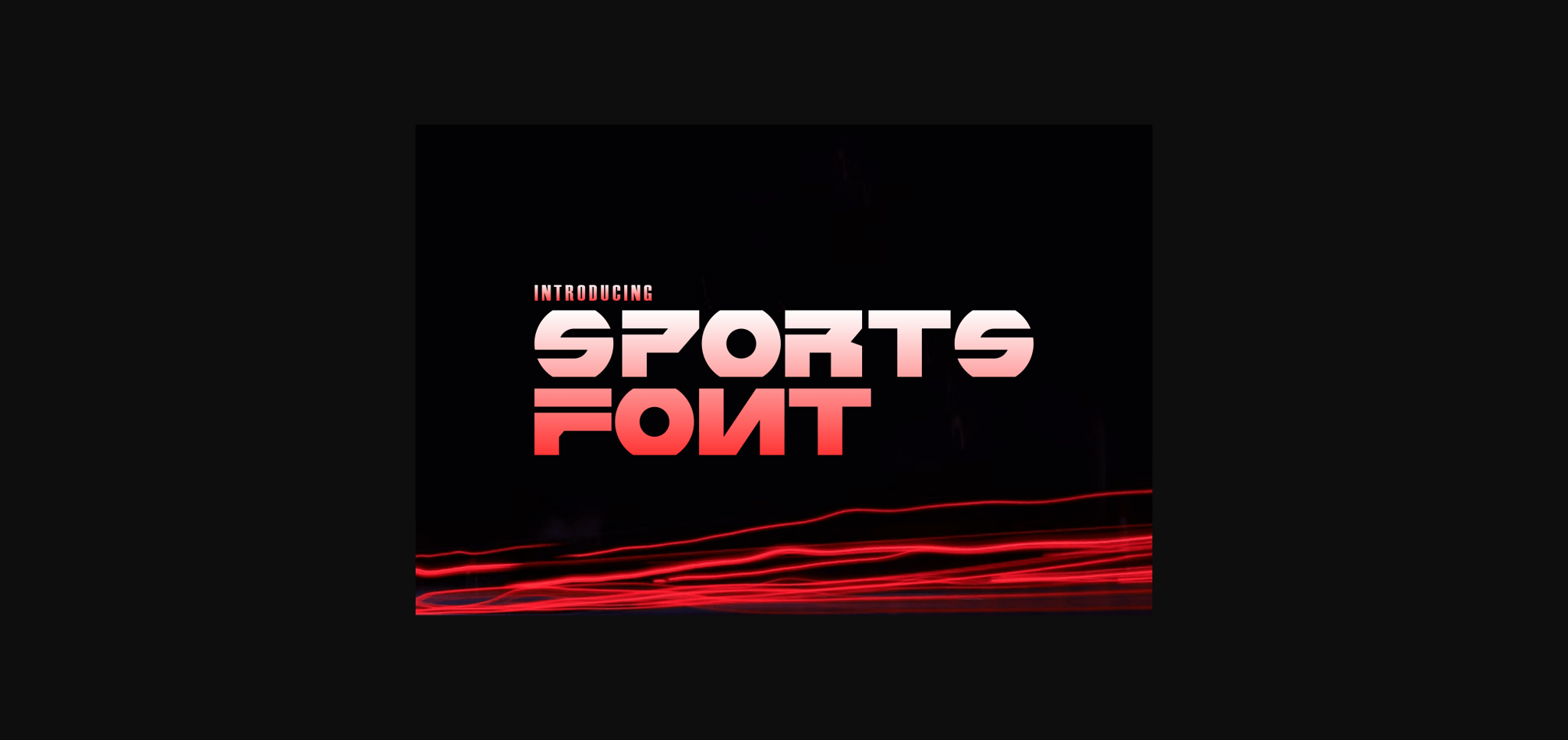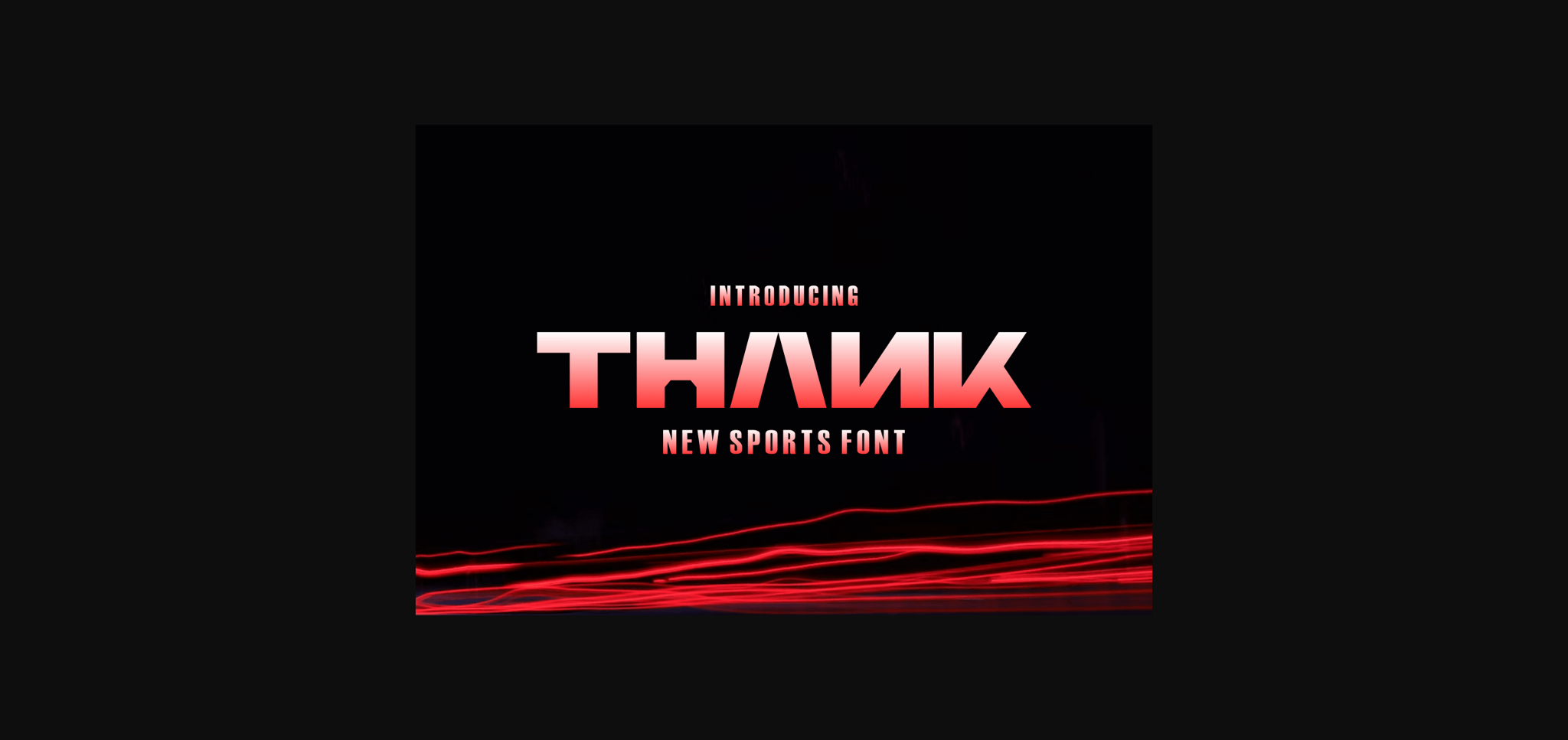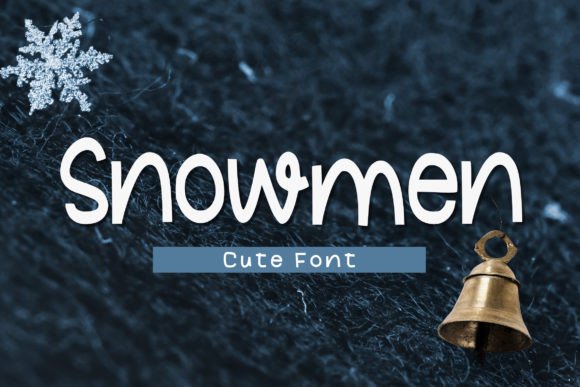
About Croper Font
Croper is a bold sans serif font that feels beautiful, classy, elegant, and modern. This font is perfectly suited for a wide variety of projects, such as signature, stationery, logo, wedding, typography quotes, magazine or book cover, website header, clothing, branding, packaging design, and more.